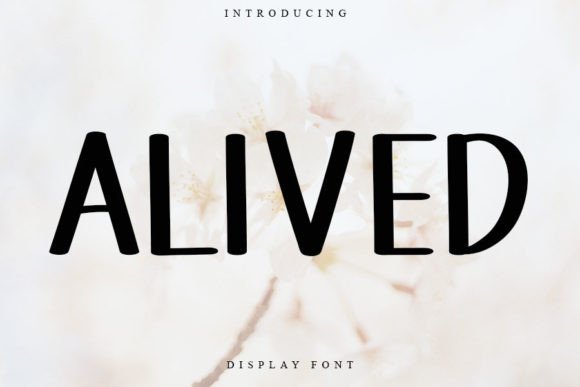
About Alived Font
**Alived**: *Where Sweetness Meets Luxury*
Alived is more than just a font; it’s a sweet and beautiful handwritten typeface that brings a touch of luxury to your design projects. With characters that gracefully dance along the baseline, this font adds an air of elegance and sophistication, making it the perfect choice for any creative project you wish to undertake.
What sets Alived apart is its remarkable ability to blend sweetness with luxury. The font’s meticulously designed characters exude an authentic sense of opulence, making it an ideal choice for projects that require a touch of charm and a high level of visual appeal. Alived is the font that can effortlessly enhance your designs, ensuring they shine with a unique blend of sweetness and luxury.
Alived strikes the perfect balance between modern aesthetics and classic elegance, making it a versatile and invaluable choice for projects that aim to make a statement.
In branding and design projects, Alived adds a unique sense of character and sophistication, making your content more memorable and enchanting. For invitations, greeting cards, and promotional materials, the font’s graceful beauty enhances the visual appeal of your creations, making them more captivating and refined. Whether you’re working on digital or print projects, Alived brings an air of luxury and charm to your creative work.
One of Alived’s most remarkable qualities is its adaptability. It can seamlessly transition from a casual and friendly tone to a more expressive and artistic one, making it suitable for a wide range of creative applications. Its ability to convey sweetness and luxury ensures that it remains a cherished choice for designers and creators across diverse industries.
In summary, Alived is more than just a font; it’s a design asset that masterfully combines sweetness with luxury. Its gracefully dancing characters and timeless charm position it as an indispensable tool for anyone seeking to infuse their creative projects with a touch of sophistication and opulent beauty. Embrace the sweetness and luxury of Alived, and watch your designs come to life with ease and artistic flair, leaving a lasting impression and captivating your audience with its classic and refined presence.